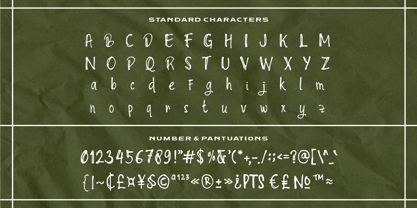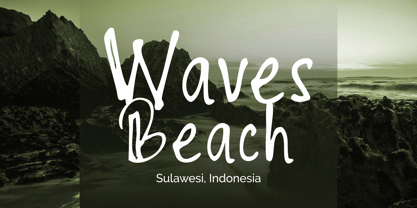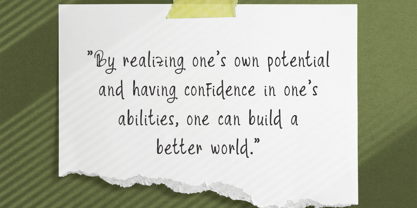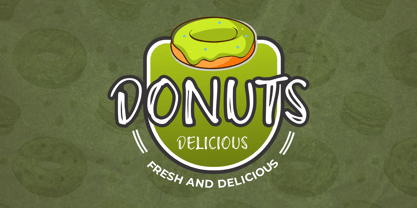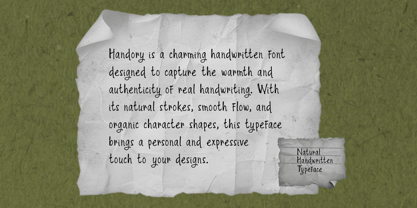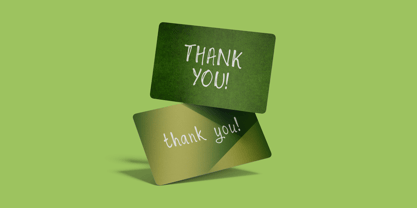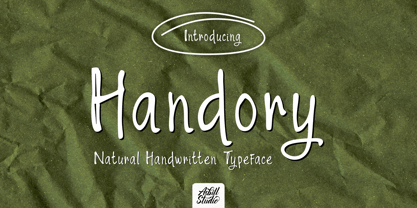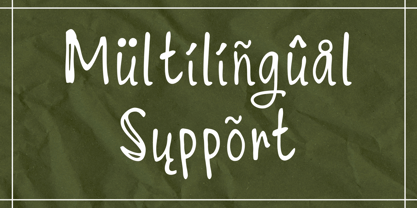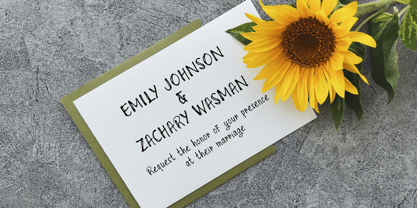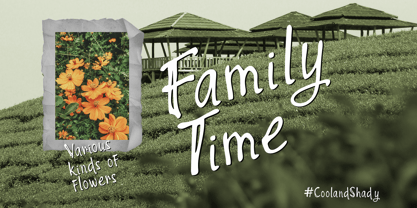
Handory
by Asbill Studio
The Handory Font Family was designed by Ricky Ali and published by Asbill Studio. Handory contains 2 styles and family package options. More about this family
Handory is a beautifully crafted natural handwritten typeface that captures the charm of authentic penmanship through its organic strokes and expressive character. Its casual yet distinctive style creates a warm, personal, and artistic impression, making every word feel effortlessly handwritten.
Designed to bring personality and creativity to your work, Handory is perfect for logos, branding, packaging, posters, social media, quotes, invitations, and lifestyle projects. Whether used for elegant headlines or playful compositions, Handory adds a unique handcrafted touch that makes your designs stand out.